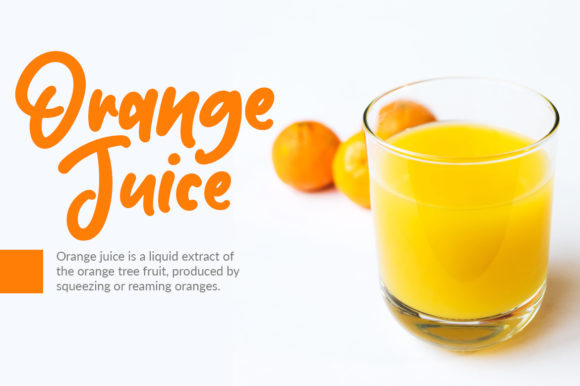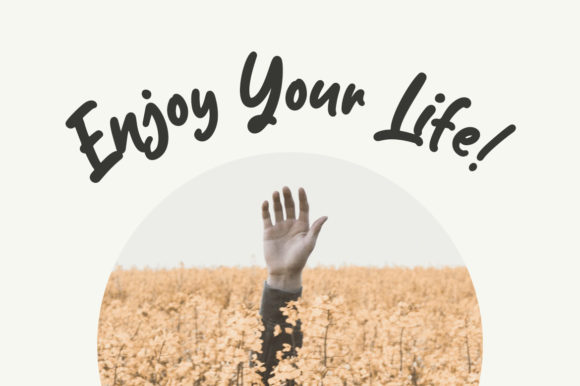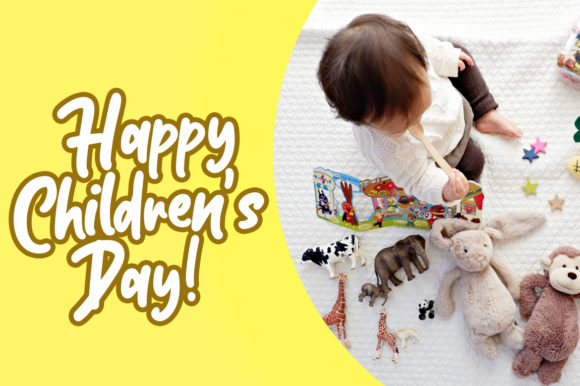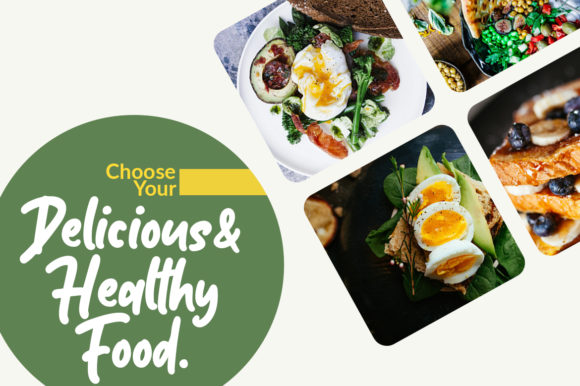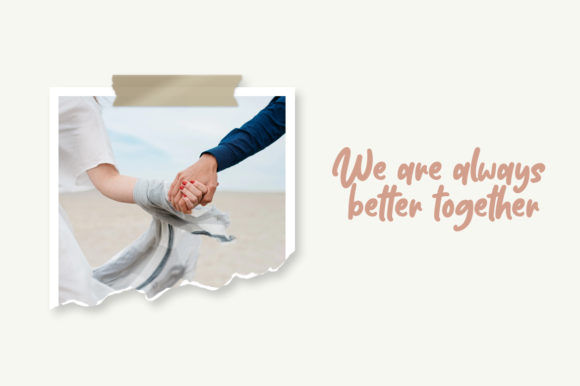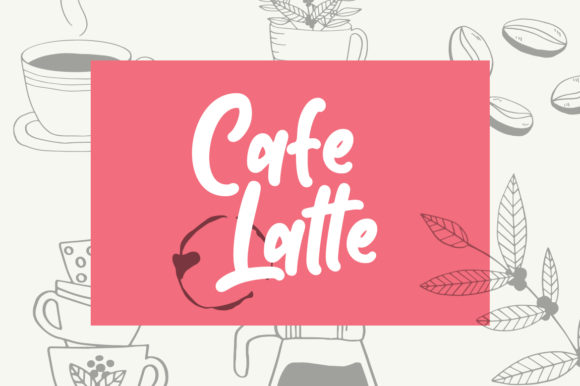
The Ultimate Display Font for Creatives: Folders
Ah, the elusive perfect font. You know, that one that makes your design project go from meh to mesmerizing. I’ve been there, done that, and got the t-shirt (which, by the way, was probably designed with a font that wasn’t quite right). But today, I’m excited to share with you a game-changer: Folders, a display font that embodies fun, quirkiness, and authenticity.
My First Impressions
I was working on a project for a client who wanted a playful, yet sophisticated look. I scoured font libraries, but nothing seemed quite right. That was until I stumbled upon Folders. The first thing that caught my eye was its unique blend of modern and whimsical elements. It was like the font was saying, “Hey, I’m here to make your design pop!” And, oh, did it ever.
- ✨ Unique character: Folders has a distinct personality that sets it apart from other fonts.
- ✅ Highly legible: Despite its playful nature, Folders remains easy to read, even at smaller sizes.
- 🌈 Versatile: This font works beautifully for titles, headings, and even short paragraphs.
- 🎨 Customizable: With OpenType features and glyphs, you can experiment with different styles to match your design.
⚠️ While Folders is a stunning display font, it may not be the best choice for body text or long paragraphs. Its uniqueness can become overwhelming in large blocks of text.
🤔 Some users might find the font’s quirky elements challenging to pair with other fonts. However, with a little experimentation, you can find the perfect match.
- Experiment with OpenType features, like stylistic alternates, to add visual interest.
The Designer Inspiration Behind Folders
Folders was designed with the intention of creating a font that would bring a smile to users’ faces. Its creator, a talented typographer, drew inspiration from playful street art, quirky stationery, and vintage posters. The result is a font that exudes fun and authenticity, making it perfect for creative projects.
Q: Is Folders suitable for body text?
A: While Folders is an excellent display font, it’s not ideal for body text or long paragraphs. Its uniqueness can become overwhelming in large blocks of text.
Q: Does Folders support OpenType features?
A: Yes, Folders includes OpenType features, such as stylistic alternates, glyphs, and ligatures, which can enhance your design.
Q: Can I pair Folders with other fonts?
A: Absolutely! Folders pairs well with a variety of fonts. Experiment with different combinations to find the perfect match for your design.